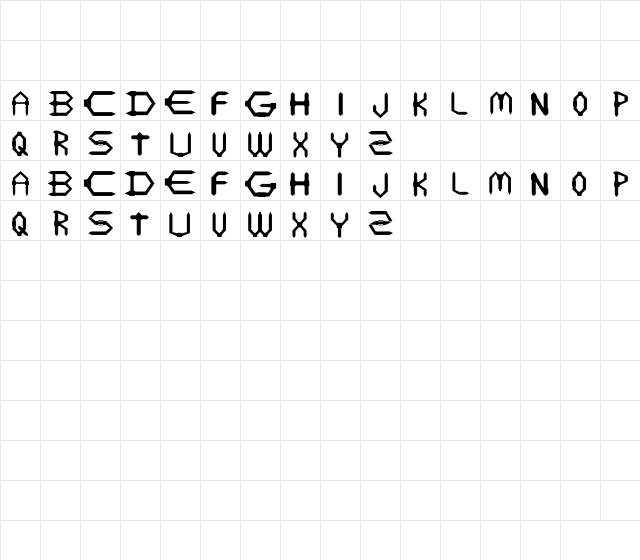
Cyber Daemon Regular Free Font
Cyber Daemon Regular
Foundry: High-Logic
Designer: High-Logic - Erwin Denissen 1999
Design Context for Cyber Daemon
Cyber Daemon has a distinctly futuristic character, with geometric precision and clean angles that feel at home in technology, gaming, and sci-fi contexts.